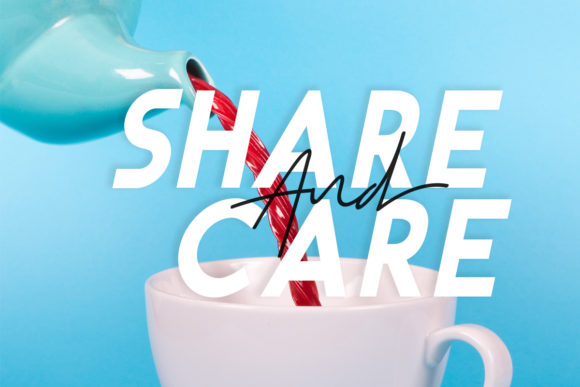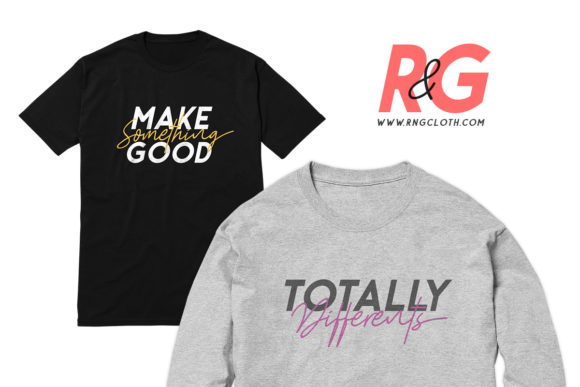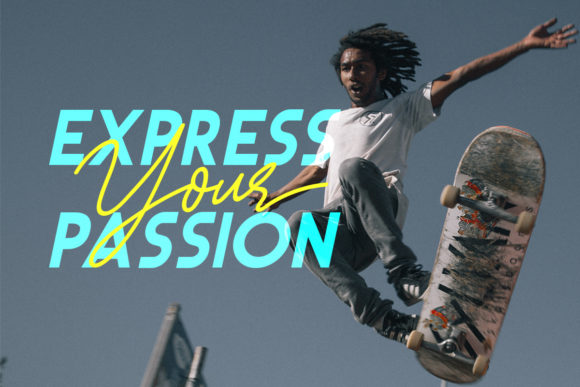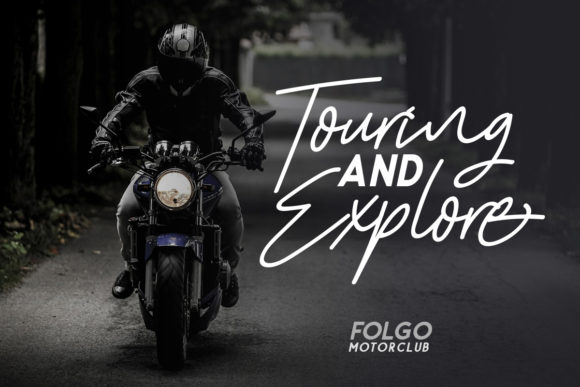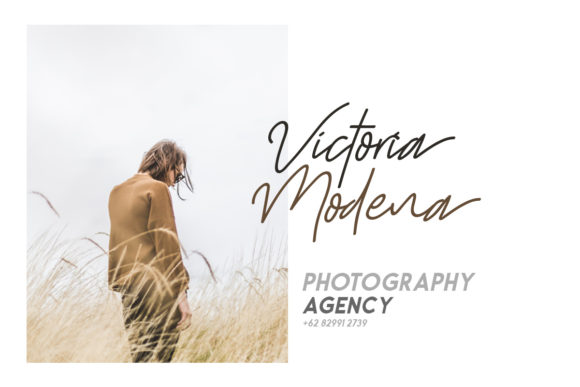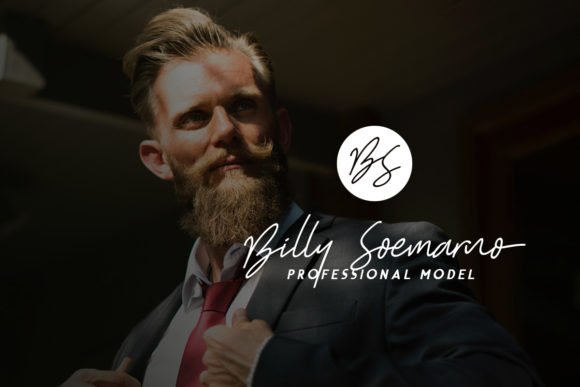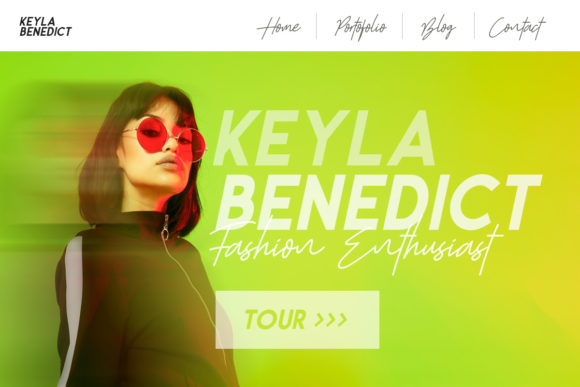
Big Reputation Duo Font
About Big Reputation Duo Font
The Big Reputation is an amazing font duo. It includes two best selling fonts in an italic style. These fonts can be combined perfectly to give your design an unique look.